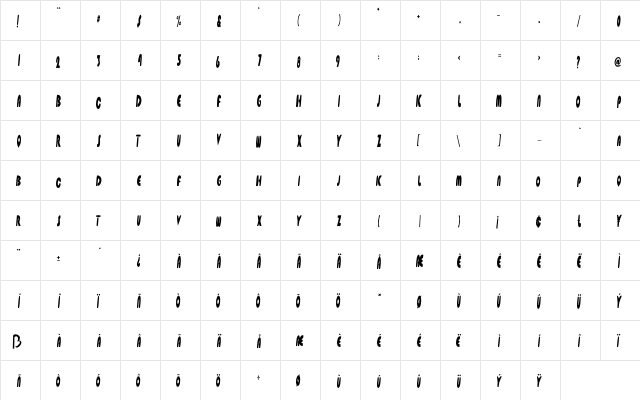
Gladiolus Display Regular
Design Context for Gladiolus Display Typeface
Gladiolus Display is built around its visual character rather than neutral utility — its distinctive forms are designed to make an impression at display sizes.
Font Pairing: Pair with a clean neutral sans-serif for body copy to let Gladiolus Display's character lead without overwhelming the composition.
Pro Tip: Use Gladiolus Display exclusively at display sizes — it was designed to be seen, not read at length. Let a neutral companion handle body copy.